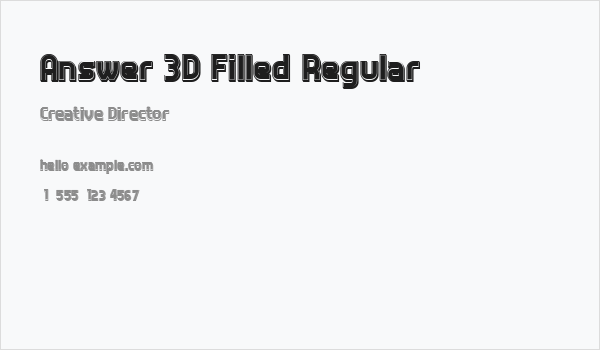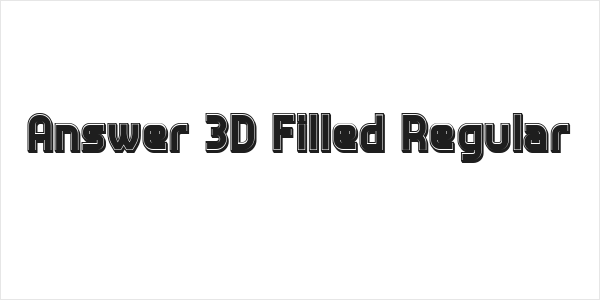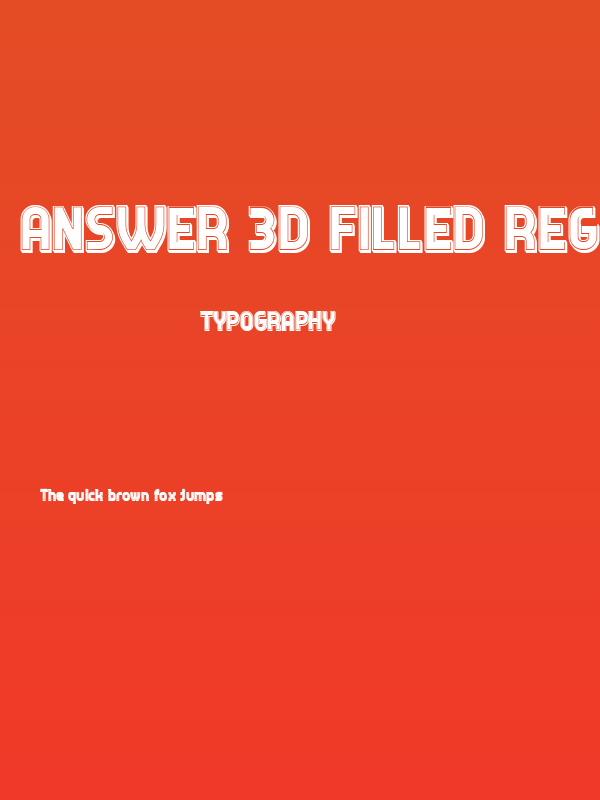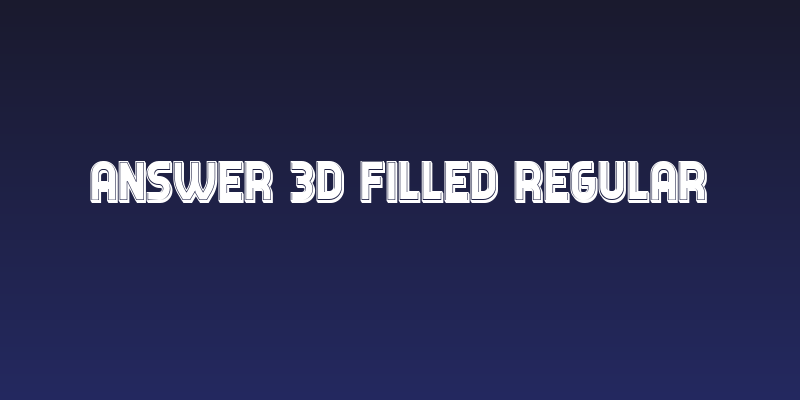
Answer 3D Filled Regular Font
Answer 3D Filled Regular Description
This font features a bold, three-dimensional appearance with a filled center and a prominent outline that gives it a striking, impactful look. The characters are uniformly wide, with a consistent stroke that enhances their readability and presence. The uppercase and lowercase letters maintain a cohesive style, while the numerals and special characters complement the overall design. This font's geometric structure and bold lines make it ideal for attention-grabbing headlines and titles.
| Proposed Projects | Ideal for posters, logos, and branding materials where a bold statement is needed. |